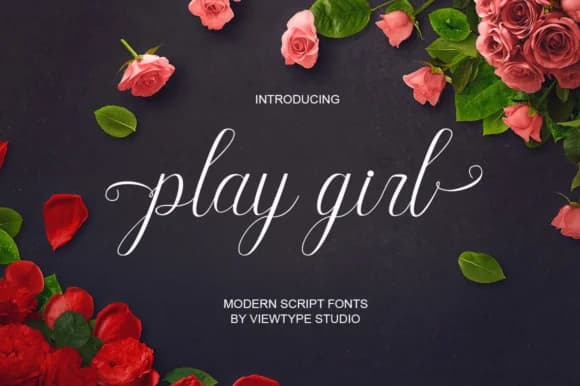
Play Girl Font by Viewtype is an elegant handwritten script with a fluid, contemporary character that flows gracefully across the page. The design captures the charm of modern calligraphy while maintaining excellent readability, making it equally suitable for digital and print applications. Whether you're creating wedding invitation suites, personalized greeting cards, or luxury cosmetics packaging, this typeface brings a refined yet approachable sensibility to your projects. The font's carefully crafted letterforms shine in upscale branding contexts, from small-batch skincare labels to boutique business stationery. Designers frequently pair it with serif or sans-serif fonts to create sophisticated multi-level hierarchies in editorial designs and elegant event programs. Beyond print, Play Girl adapts beautifully to digital uses including website headers, Instagram story graphics, and branded social media content where personality matters as much as professionalism. What sets this typeface apart is its balance between artistic expressiveness and practical functionality. The letterforms maintain consistent spacing and proportions throughout, preventing the hand-drawn quality from compromising legibility. This makes it particularly valuable for projects where emotional impact and clarity must coexist, like custom wedding signage, artisanal product labels, and creative business announcements. The font handles both headline applications and smaller display sizes with remarkable versatility. Get Play Girl Font from Creative Fabrica and add this sophisticated handwritten script to your design toolkit.
Play Girl Font is a script font that shines as a display or heading face. Pair it with a clean sans-serif or serif font for body text β the contrast creates a clear hierarchy while the two styles stay balanced and easy to read.
Play Girl Font
by Viewtype